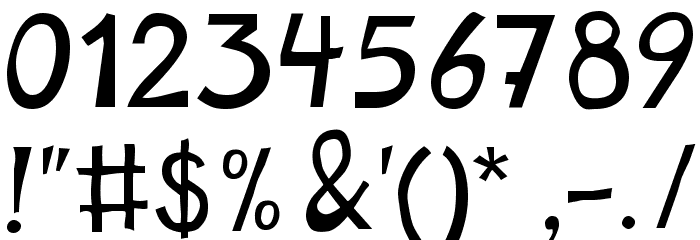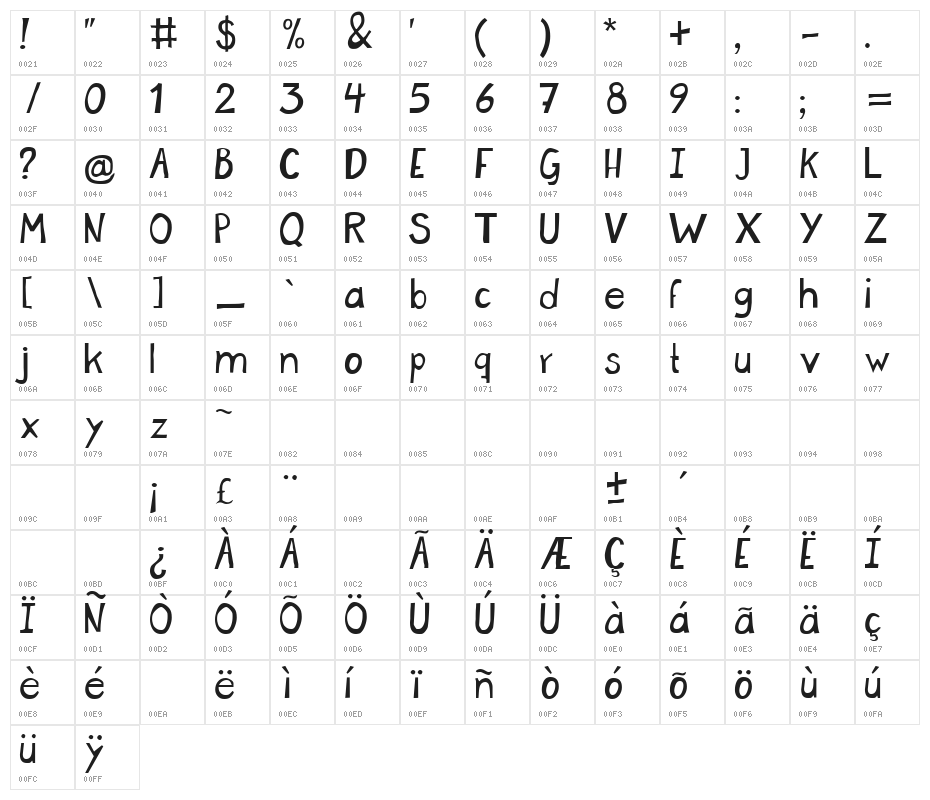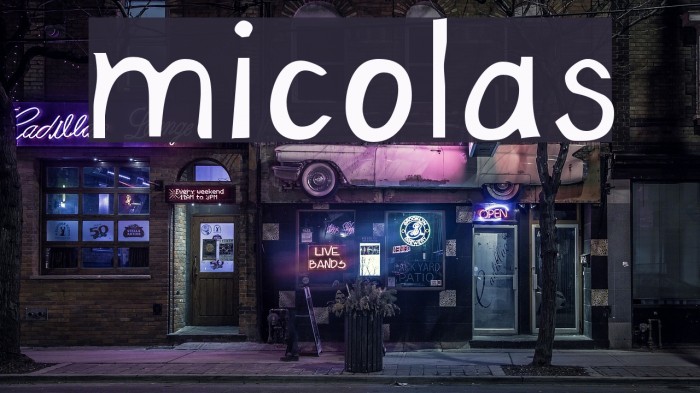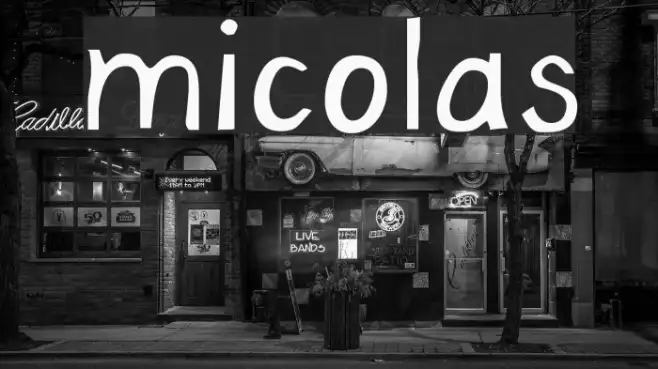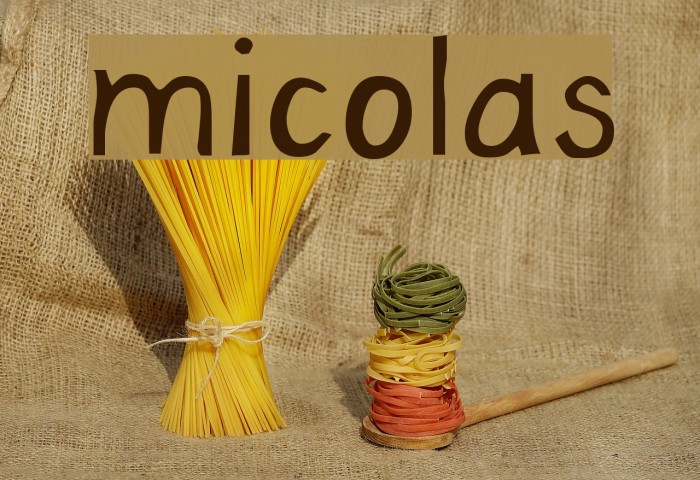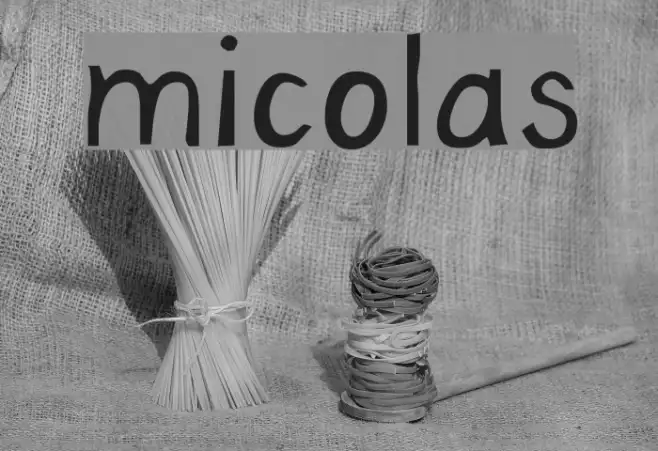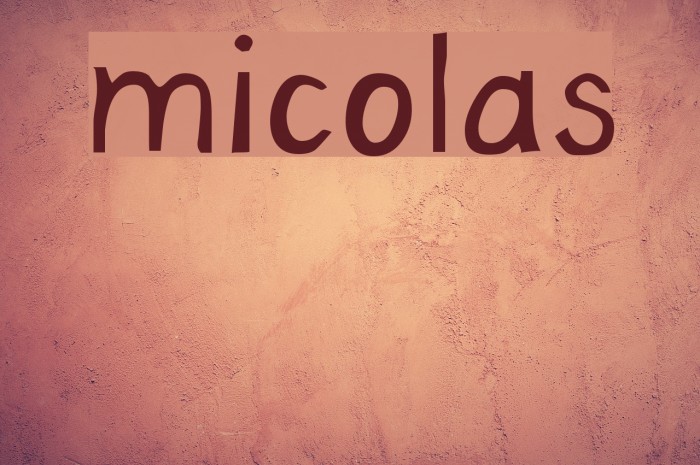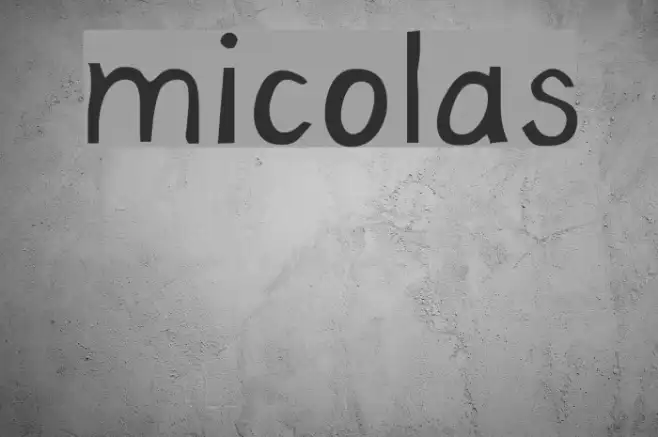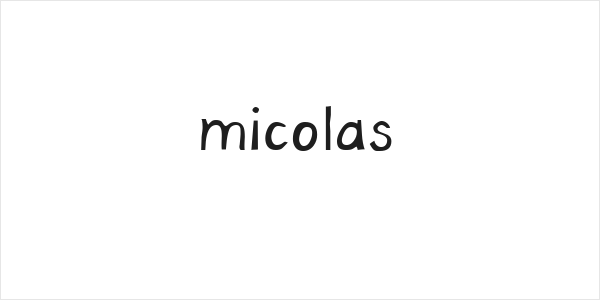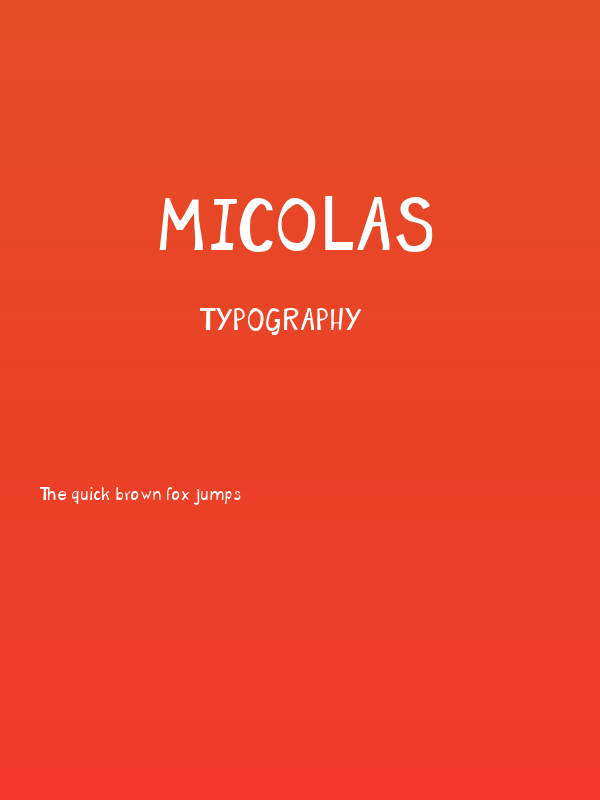
micolas Font
micolas Description
This font features a playful and informal style with a handwritten appearance. The uppercase letters have a slightly uneven baseline, adding to the casual feel. The lowercase letters are rounded and maintain a consistent height, contributing to the font's readability. Numbers are bold and clear, with distinct shapes that ensure legibility. Special characters are creatively designed, matching the overall whimsical theme. The font's unique character is suitable for projects that require a friendly and approachable look.
| Proposed Projects | Ideal for children's books, greeting cards, playful branding, and informal invitations. |